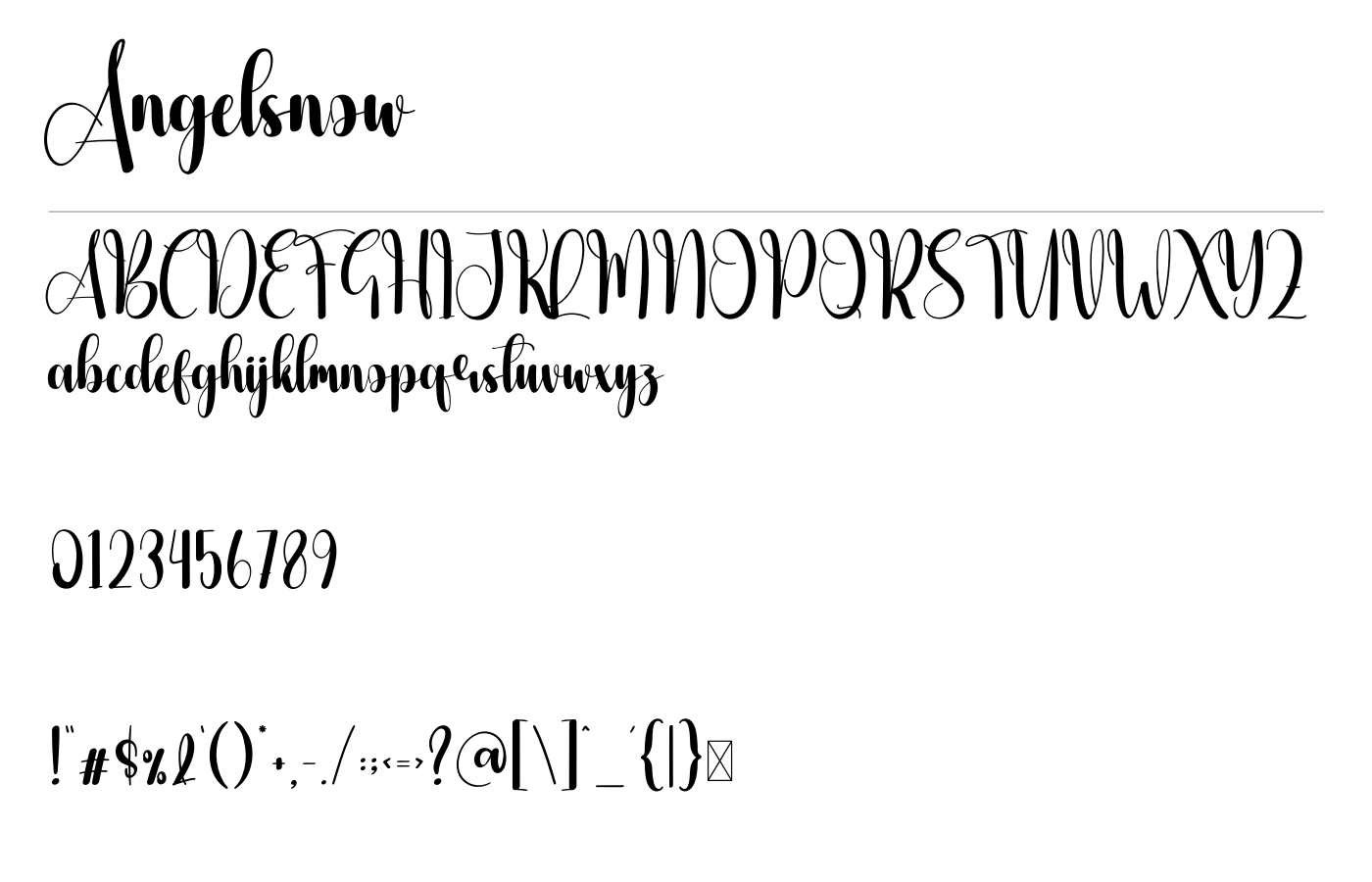
Angelsnow is a playful and elegant script font with a mix of thick and thin strokes, offering a lively and handwritten feel. Its tall, narrow letterforms and stylish swashes make it perfect for creative projects such as invitations, branding, and packaging that want to convey a whimsical yet refined personality. This font works well in large sizes for headlines or logos where its ornate details can truly shine.
Angelsnow Font
About Angelsnow Font